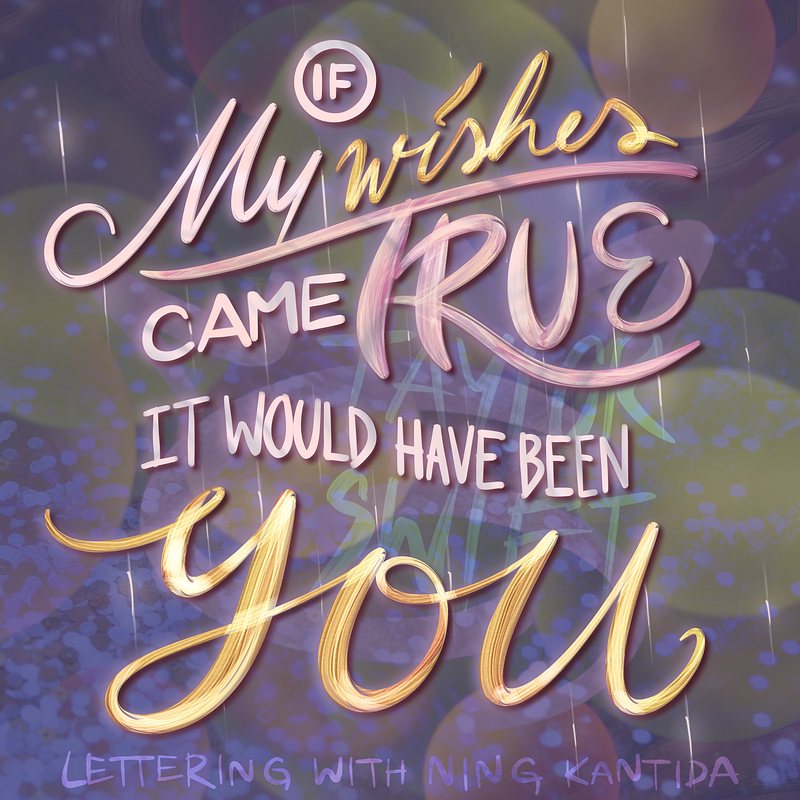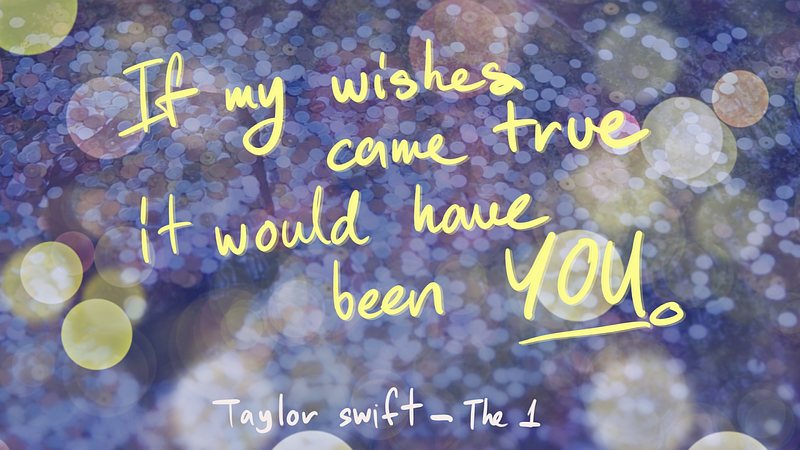
"The 1" is the song that got me into Taylor Swift's music. I deeply resonate with everything about it. I feel like the song perfectly captures the feelings of longing and regret over a past love that you consider the best you've ever experienced. It encapsulates the bittersweet nature of "what-ifs" and the slow progress of moving on, while still clinging to the idea of being the one they’d choose in the end. This song will always be my favorite of hers.
I actually did some lettering for these lyrics four years ago when the song first came out, although I wasn't trying to make it deliberately beautiful at that time. It was just something I whipped up for fun. This time, I wanted to be more intentional with the design. I added some details to convey the concept of desperately wishing for a second chance. This includes the imagery of wishing on stars along with the water filled with floating pennies. Learning about compositions and various letter styles also helped me immensely, along with using new brushes and textures. You can see a vast difference between the two pieces.